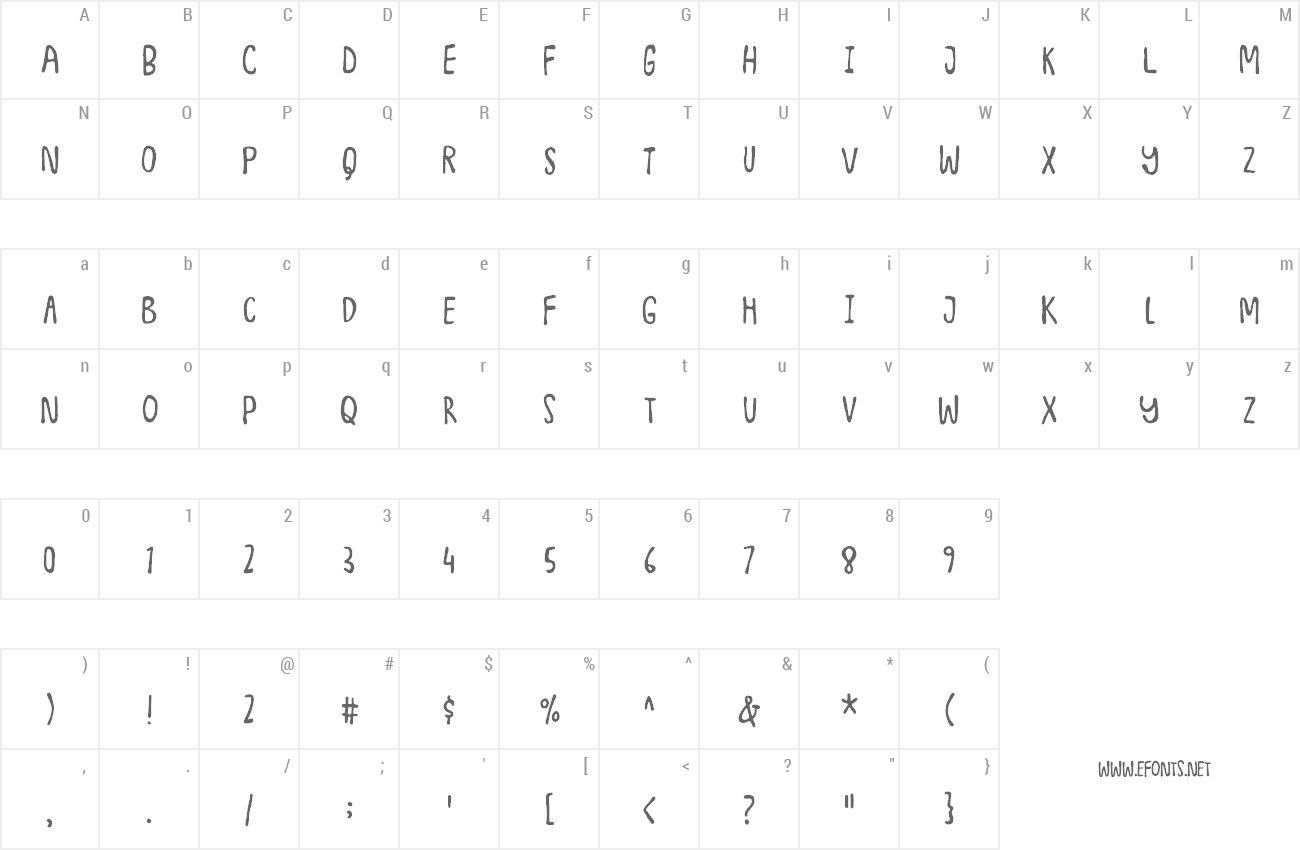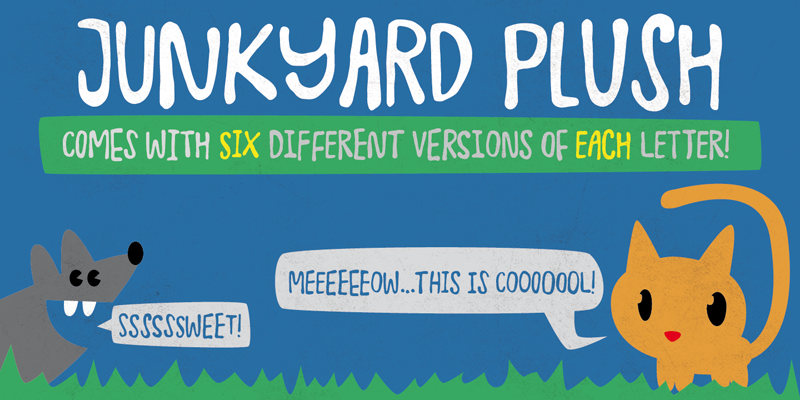
| Note by Pizzadude | |
Junkyard plush has six different versions of each letter! This is called “contextual alternates” which makes your text look random and like something authentic hand-made... which of course the font is! Included are ligatures for double-letters... if the contextual alternates aren't enough! Download the full version here: http://www.myfonts.com/fonts/pizzadude/junkyard-plush/ |